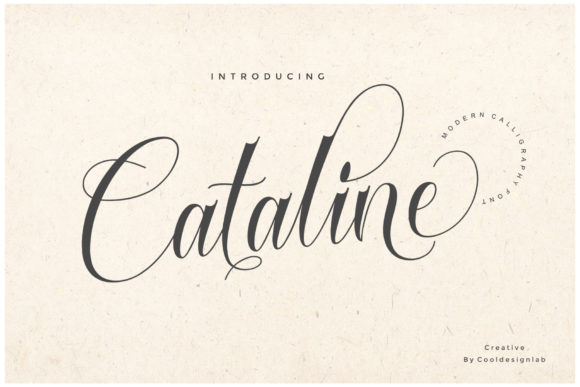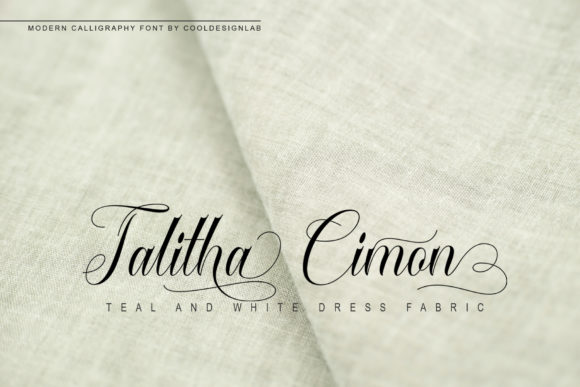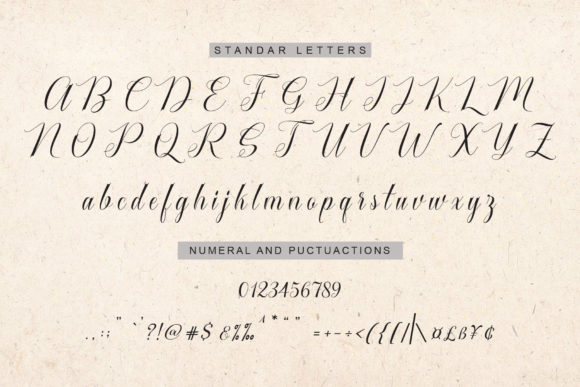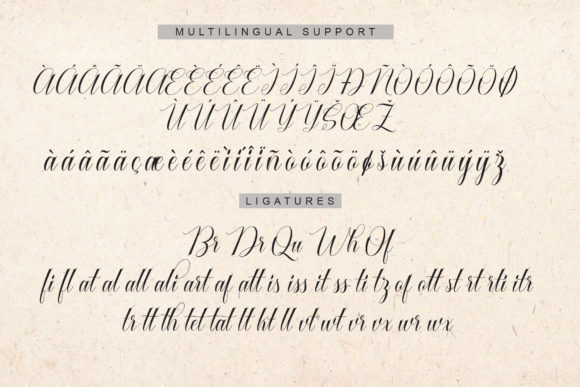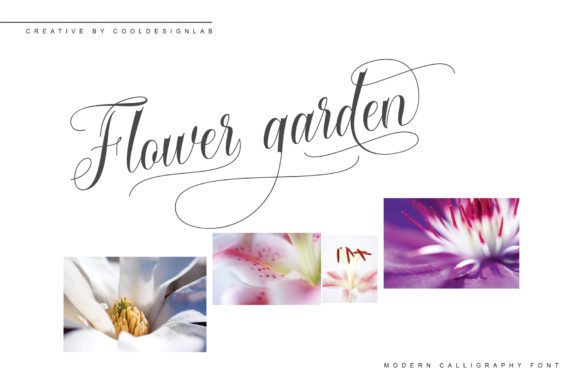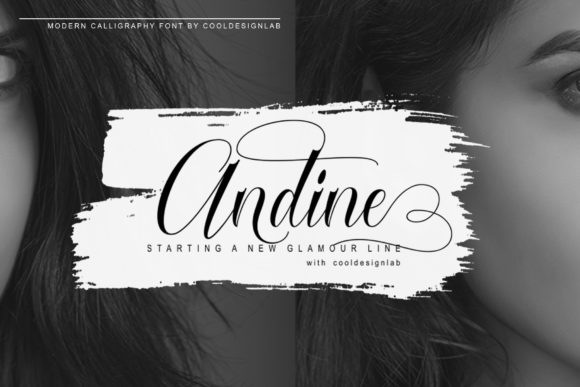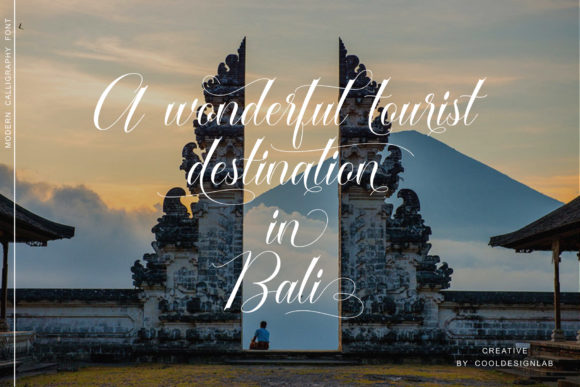
Cataline Script Font
The Cataline is a fresh calligraphy font. It has a modern style with decorative characters and a dancing basline.
It can be used for invitations, greeting cards, branding materials, business cards, quotes, posters, and more!!